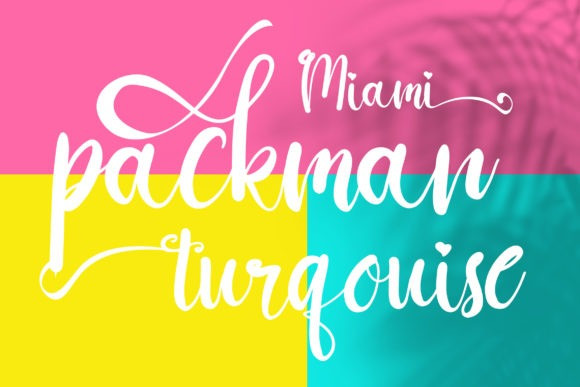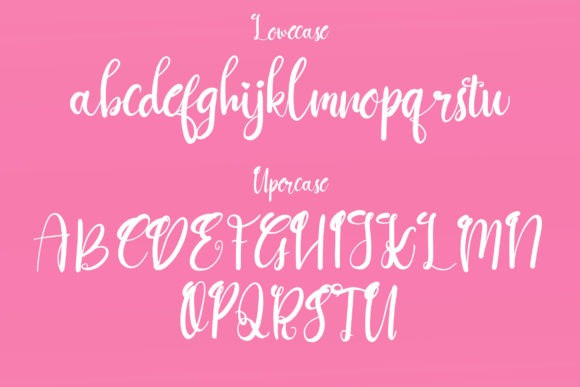
Display Signature Font SVG
Display Signature Font is an SVG Font with hand lettering style that has the texture and detail of each letter, this original font is handmade using brush so the font looks more realistic and this font has 3 different styles: SVG, Solid, Clean. This font is very suitable for a variety of different media and design styles